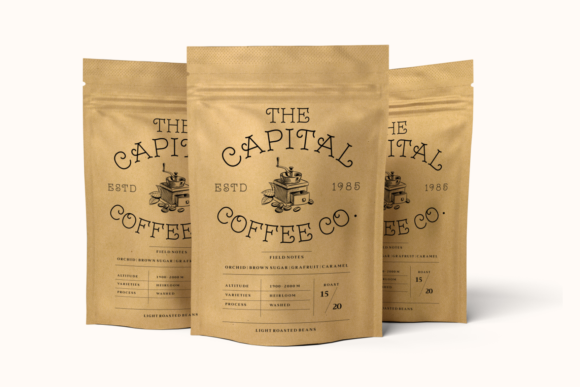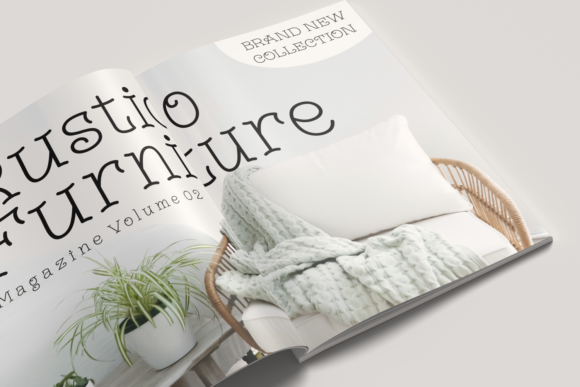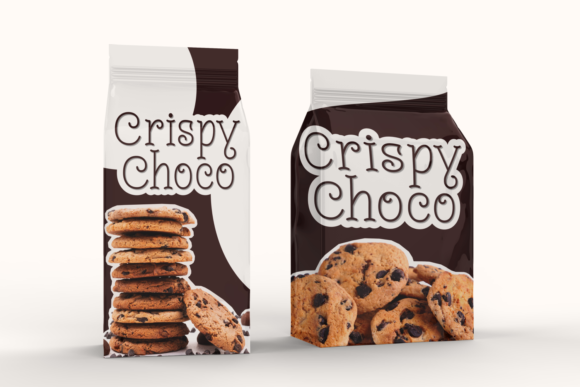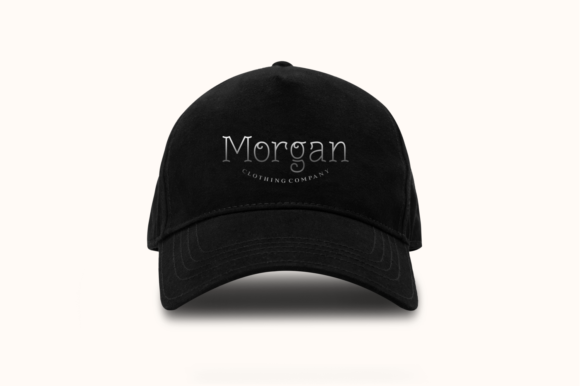
Introduction to Monomalistic Generation Font
Monomalistic Generation is a fancy, contemporary serif font.
With its neat and beautiful arrangement of letters, this typeface will look outstanding in both formal and non-formal designs .
Key Features of Monomalistic Generation Font